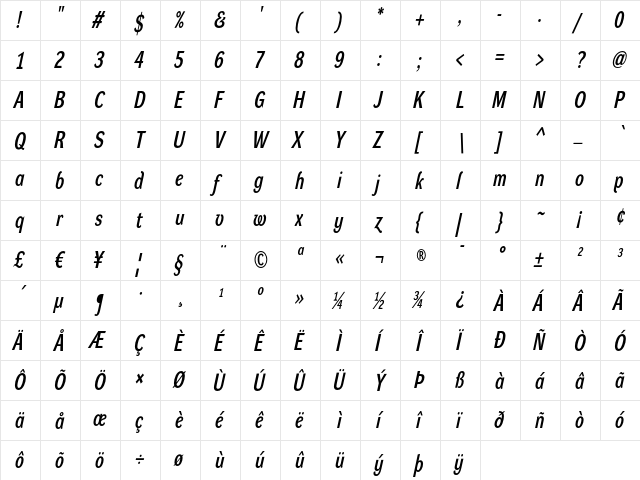
DynaGrotesk DC Italic Font Preview
DynaGrotesk DC Italic
DynaGrotesk DC Italic Font Details
| Foundry | Frantisek Storm, stormtype.com |
Design Context for DynaGrotesk DC Typeface
DynaGrotesk DC takes a clean, functional approach — its unadorned letterforms prioritise legibility and work reliably across screen and print environments. The slanted form adds forward momentum and visual energy.
Font Pairing: Works well alongside a characterful serif or display font that can carry the expressive load while DynaGrotesk DC handles the functional copy.
Pro Tip: Use DynaGrotesk DC for UI labels, navigation, and short-form body copy where clean legibility is the priority.